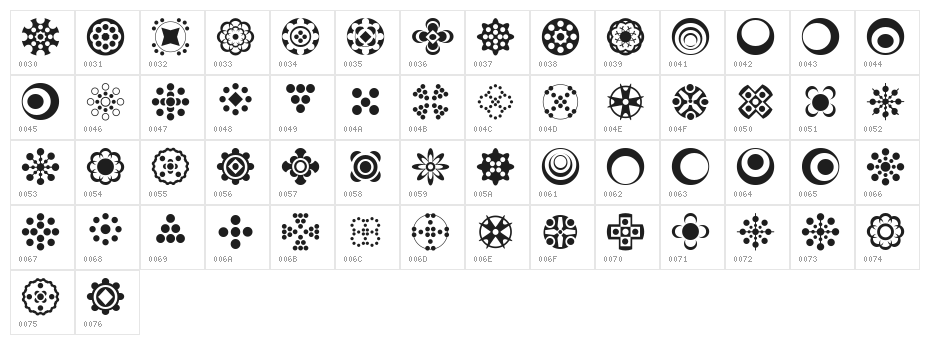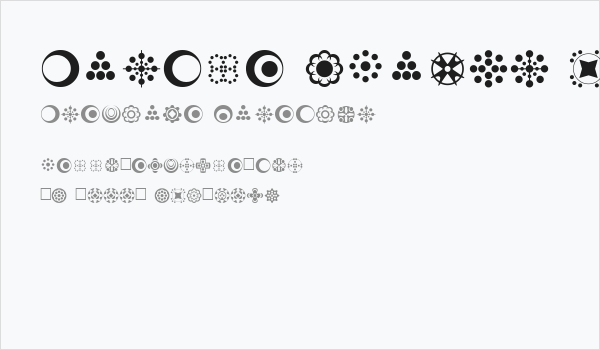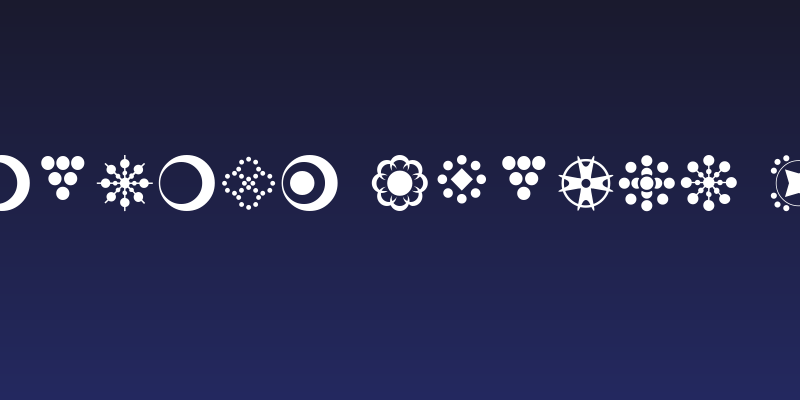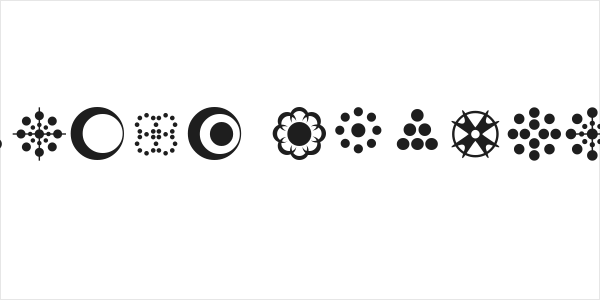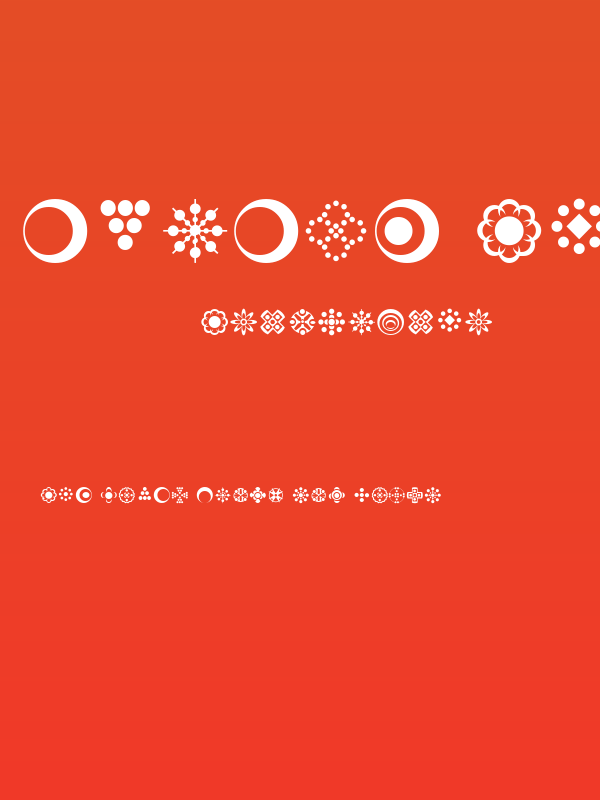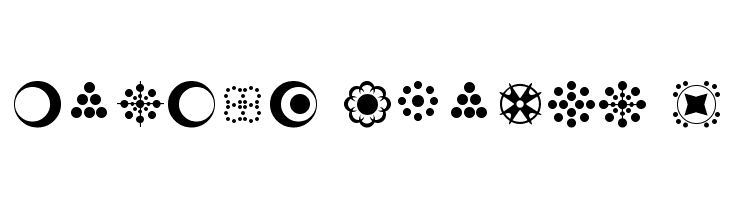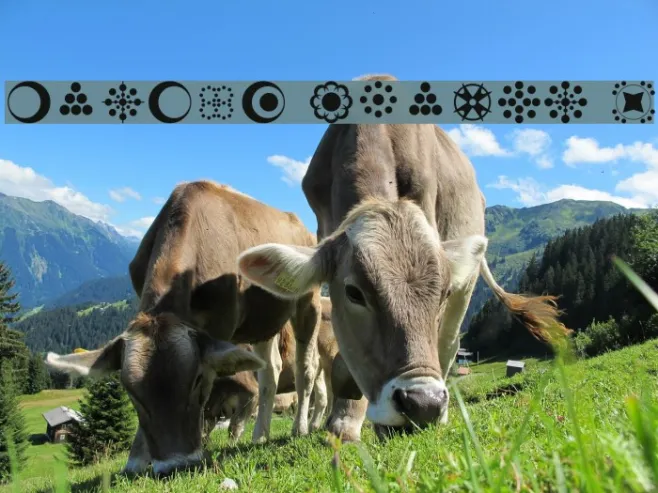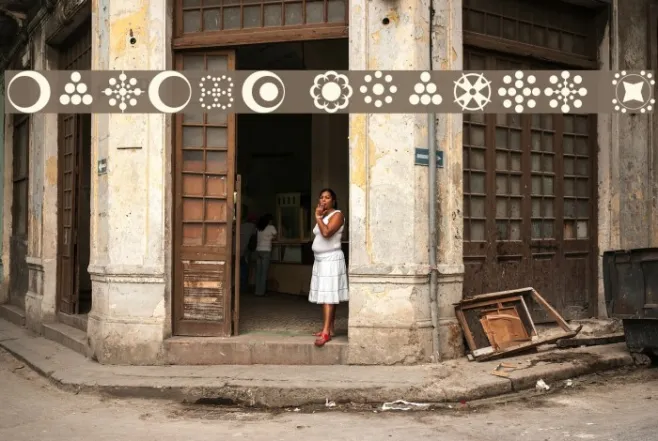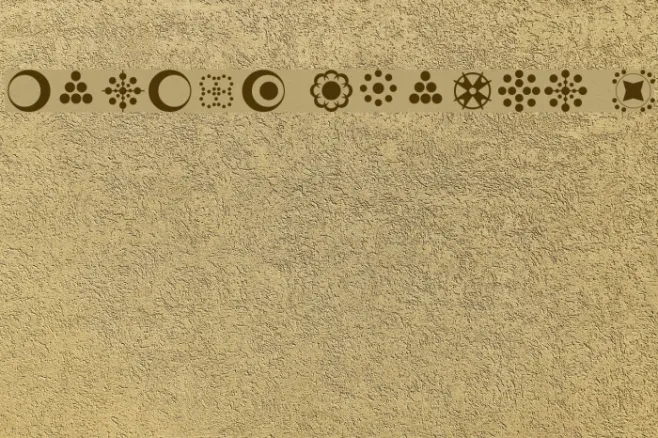
Circle Things 2 Font
Circle Things 2 Description
A decorative dingbat font featuring a variety of circular and geometric motifs, including concentric circles, floral shapes, starbursts, and abstract patterns. Each glyph is a unique ornamental design based on circles and symmetrical arrangements, with both filled and outlined elements.
| Use Case | Logos, Decorative elements, Borders, Posters |
| Proposed Projects | Logo design, decorative borders, invitations, posters, scrapbooking, digital art, and pattern creation. |